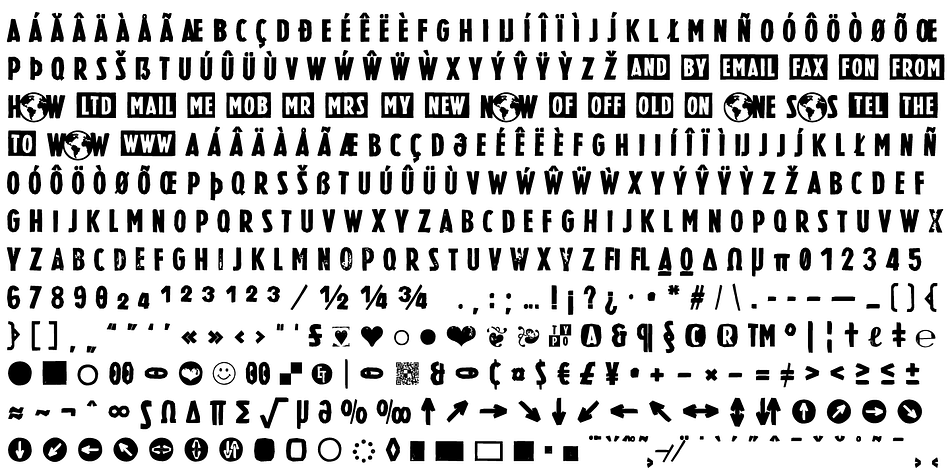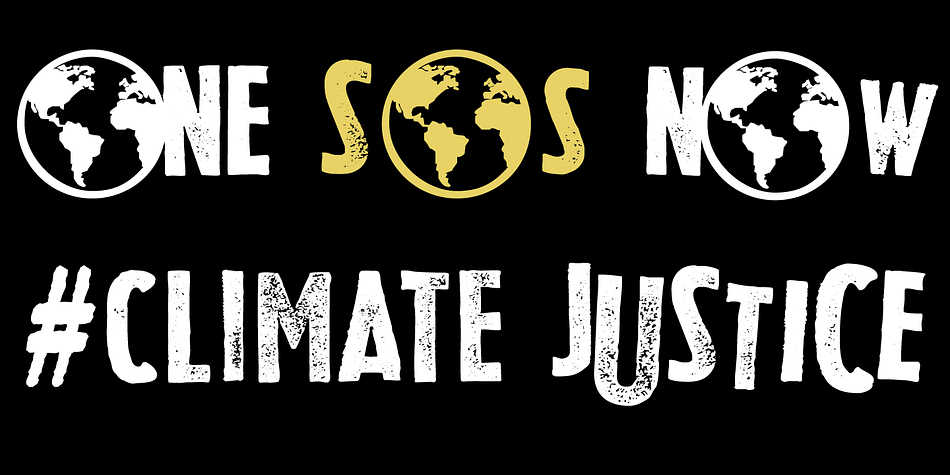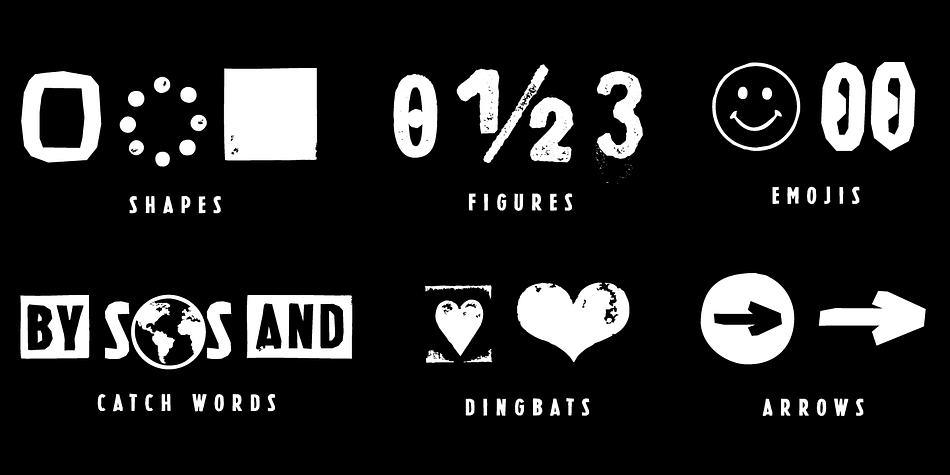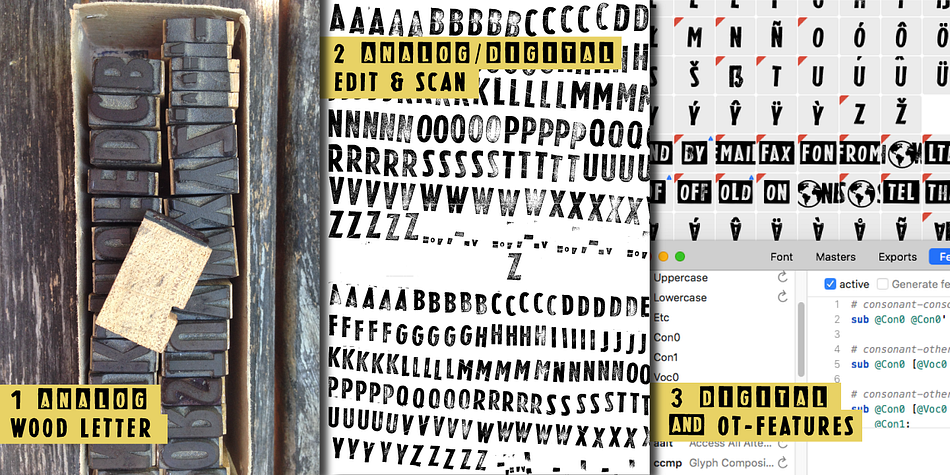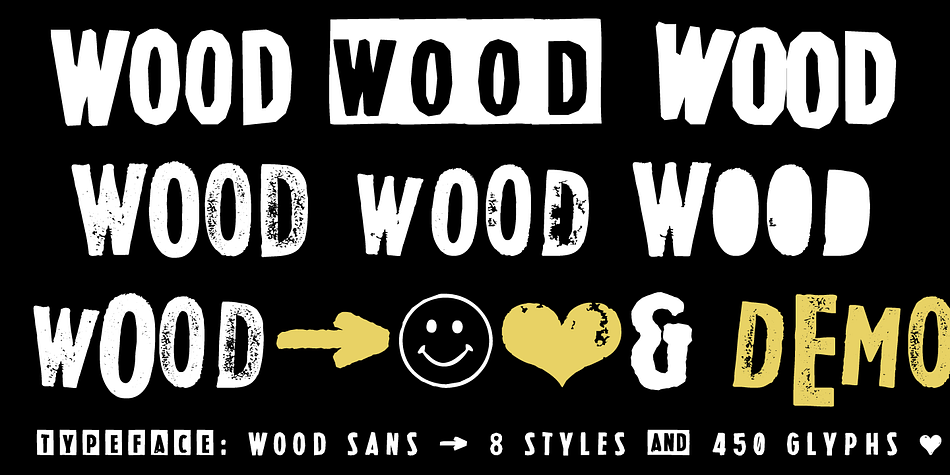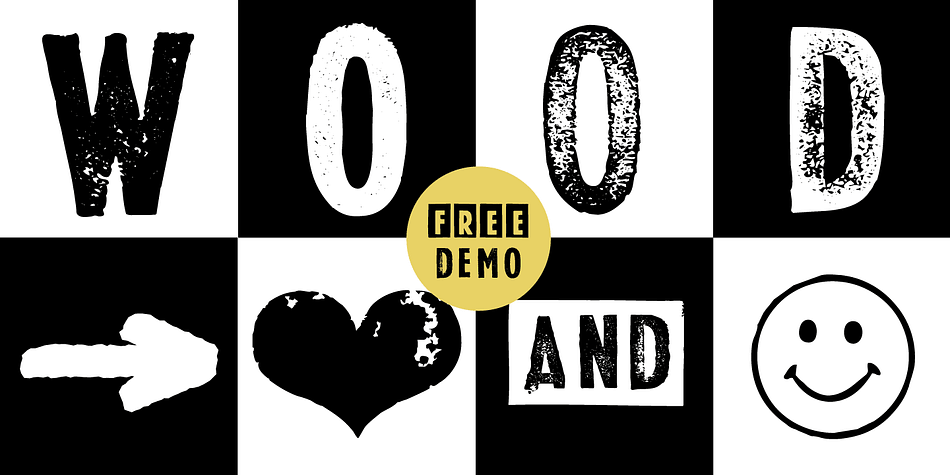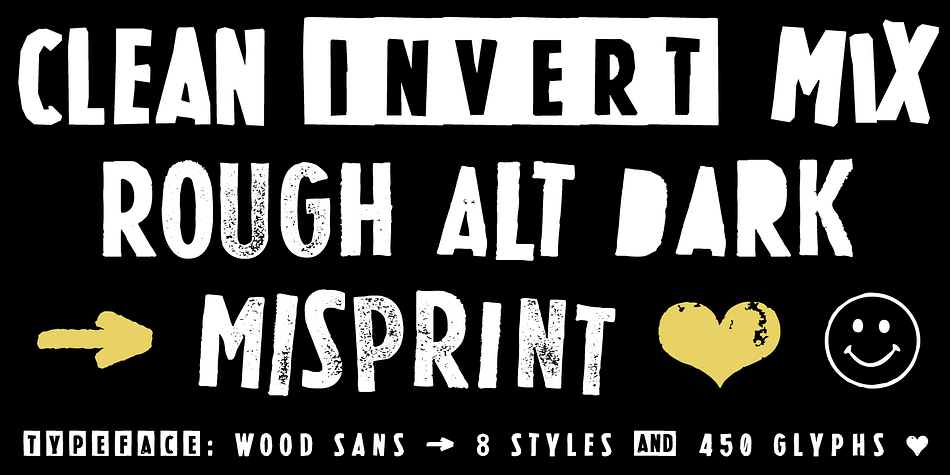
Wood Sans
Designed by Manuel Viergutz, Wood Sans is a multiple classification font family. This typeface has eleven styles and was published by Typo Graphic Design.
The typeface Wood Sans is designed from 2021 for the font foundry Typo Graphic Design by Manuel Viergutz.
The display typeface is a digital version of original wood letters from a german flea market find.
8 font-styles (Clean, Clean Invest, Clean Mix,  Rough, Rough Misprint, Rough Alt, Rough Dark & Icons) with 450 glyphs (Adobe Latin 2) incl. 100+ decorative extras like icons, arrows, German Capital Sharp S, dingbats, emojis, symbols, geometric shapes, catchwords, decorative ligatures (type the word #LOVE for ❤ or #SMILE for ☺ as OpenType-Feature dlig) and stylistic alternates (3 stylistic sets).
For use in logos, magazines, posters, advertisement plus as webfont for decorative headlines. The font works best for display size.
■ Font Name: Wood Sans
■ Font Styles: 8 font-styles (Clean, Clean Invert, Clean Mix,  Rough, Rough Misprint, Rough Alt, Rough Dark & Icons) + DEMO (with reduced glyph-set)
■ Font Cate­gory: Dis­play for head­line size
■ Glyph Set: 450 glyphs (Latin 2 incl. decorative extras like icons)
■ Design Date: 2021
■ Type Desi­gner: Manuel Viergutz